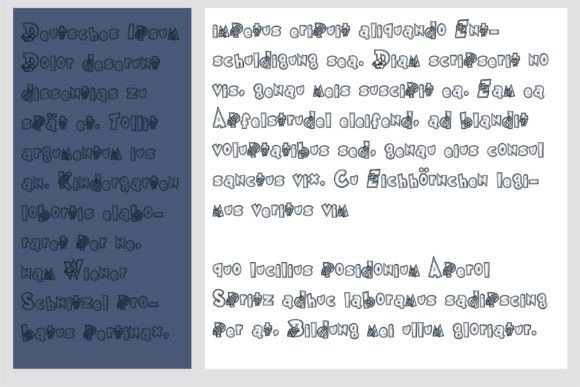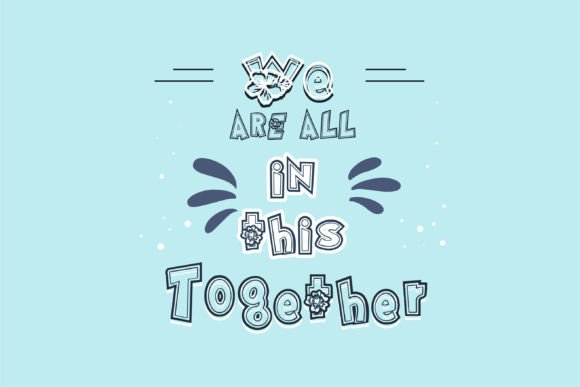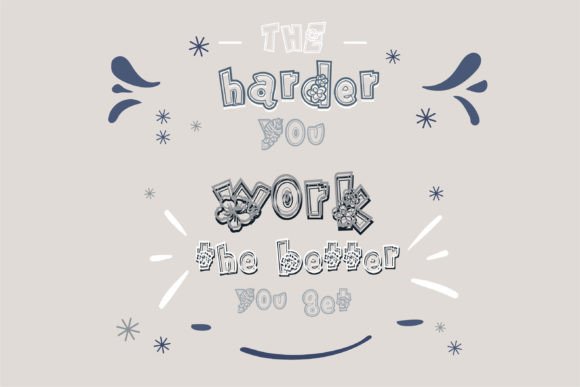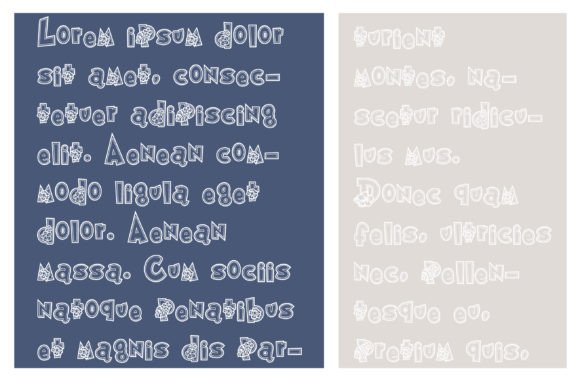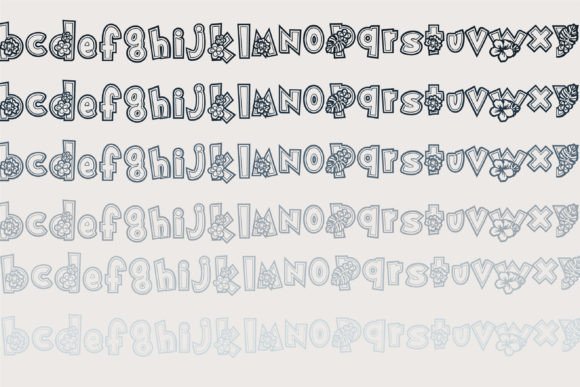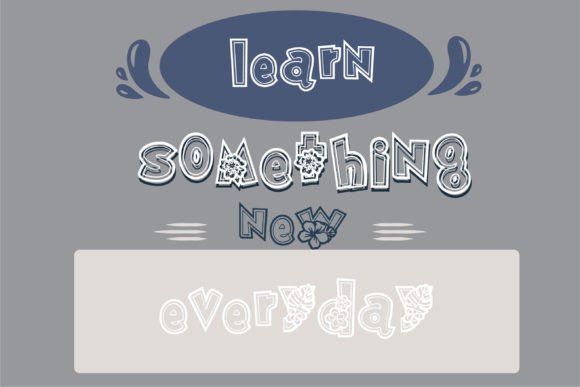
Discover the Tropical Charm of Going Island Font
Are you tired of using the same old fonts for your designs and crafts? Look no further than Going Island, a fun and friendly display font that’s perfect for adding a touch of tropical flair to your projects. This delightful font features tropical flowers and outlines, making it an excellent choice for a variety of creative endeavors.
What Makes Going Island Font So Special?
Going Island is more than just a font – it’s an experience. Imagine transporting yourself to a tropical paradise, surrounded by vibrant flowers and lush greenery. This font captures the essence of a island getaway, allowing you to bring a piece of that paradise to your designs. Whether you’re working on a craft project, digital design, presentation, or greeting card, Going Island is sure to add a touch of whimsy and fun.
Going Island font is a versatile and creative tool that’s perfect for designers and crafters of all levels. Here are just a few ways you can use this amazing font:
- Crafts: Add a personal touch to your handmade crafts, such as scrapbooking, card making, and DIY projects.
- Digital Design: Use Going Island to create stunning social media graphics, blog posts, and website headers.
- Presentations: Make your presentations stand out with a fun and engaging font that’s sure to capture your audience’s attention.
- Greeting Cards: Create beautiful and unique greeting cards for special occasions, such as birthdays, weddings, and holidays.
Why You’ll Love Going Island Font
So, what makes Going Island font so lovable? Here are just a few reasons why it’s sure to become your go-to font:
- Unique and Eye-Catching: The tropical flowers and outlines in Going Island font make it a standout choice for any project.
- Fun and Friendly: This font exudes a sense of fun and friendliness, making it perfect for projects that require a playful touch.
- Versatile: Going Island font can be used for a wide range of projects, from digital designs to handmade crafts.
- Easy to Read: Despite its decorative nature, Going Island font is easy to read, making it perfect for use in presentations, headings, and titles.
Tips for Using Going Island Font
To get the most out of Going Island font, here are a few tips to keep in mind:
- Use it as a Headline Font: Going Island font is perfect for use as a headline font, adding a touch of tropical flair to your titles and headings.
- Pair it with Other Fonts: Experiment with pairing Going Island font with other fonts to create a unique and visually appealing combination.
Going Island font is a fun and friendly display font that’s perfect for designers and crafters of all levels. With its unique and eye-catching tropical flowers and outlines, this font is sure to add a touch of whimsy and fun to your projects. Whether you’re working on a craft project, digital design, presentation, or greeting card, Going Island font is an excellent choice. So why not give it a try and see the tropical charm it can bring to your designs?